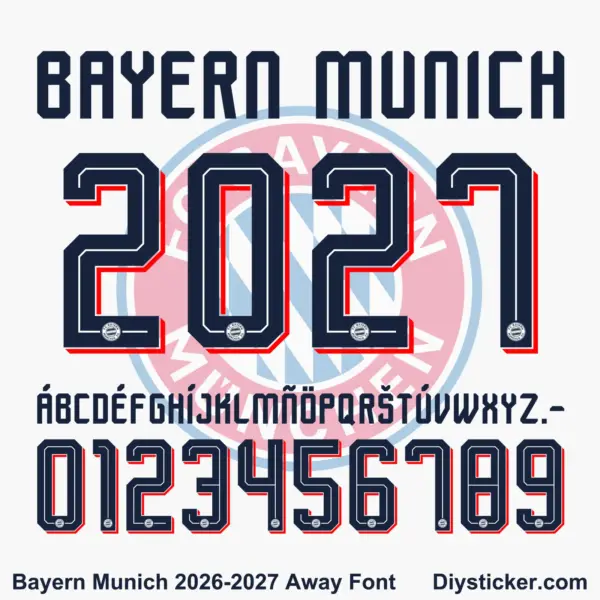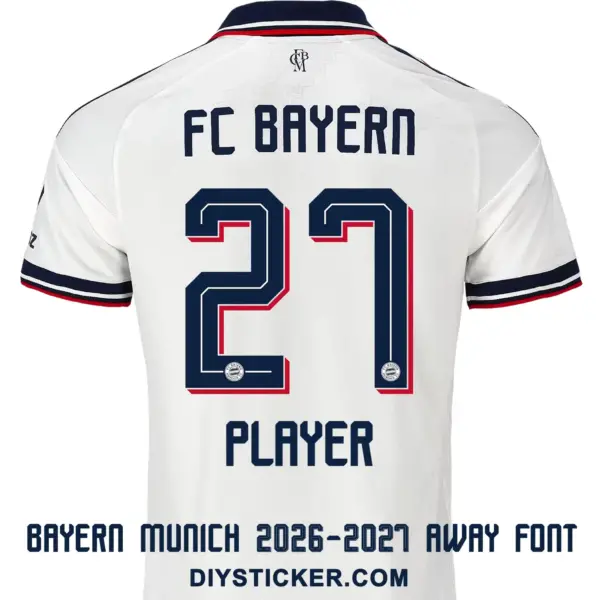
Replicate the sleek, modern away kit look of Die Roten! This digital typography file pack features the striking Bayern Munich 2026-2027 Away Font and Numbers in dark navy blue accented by vibrant red 3D drop-shadow effects, crisp inner inline paths, and the official FC Bayern München circular crest embedded at the base of every digit.
Complete futuristic uppercase alphabet, squad numbers 0-9, and specific diacritic accents.
Elevate Your Kit Customization with the Bayern Munich 2026-2027 Away Font
Upgrade your custom sports apparel catalog with the definitive away match look for the German giants! This digital typography product delivers the full Bayern Munich 2026-2027 away font style designed for the upcoming Bundesliga and UEFA Champions League campaigns. Featuring modern tech-inspired letterforms, chamfered numeric corners, a central line inlay, and a bold red drop shadow, this layout provides a dynamic 3D depth against the off-white away jersey backdrop while embedding the iconic FC Bayern München crest at the base of each squad number.
Comprehensive Character Mapping
A-Z Uppercase Alphabet: Modern block letters with open cutouts and geometric chamfers built for high pitch visibility and clean spacing across player nameplates.
0-9 3D-Effect Numbers: Bold, navy-blue numeric glyphs with an internal inline stripe, bright red drop shadow depth, and the official circular team crest neatly aligned at the bottom.
Special Accents & Diacritics: Complete set of punctuation marks and international accents (
Á,Ć,É,Ñ,Ö,Ř,Š,Ú,Ž, etc.) to accurately render names for star players.